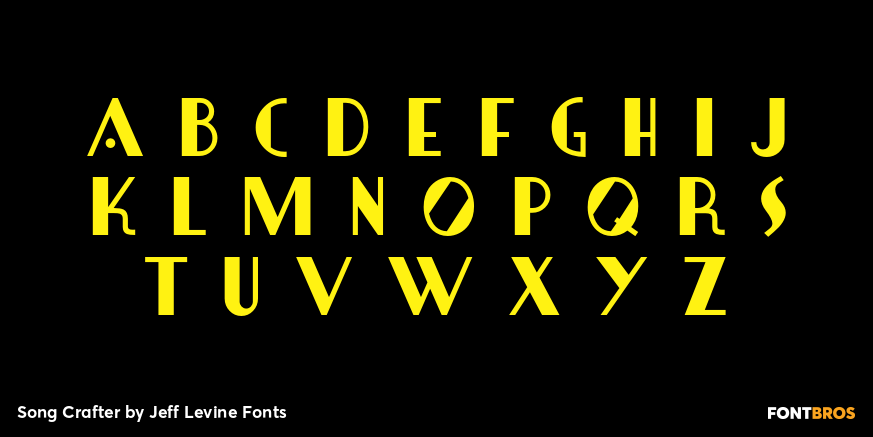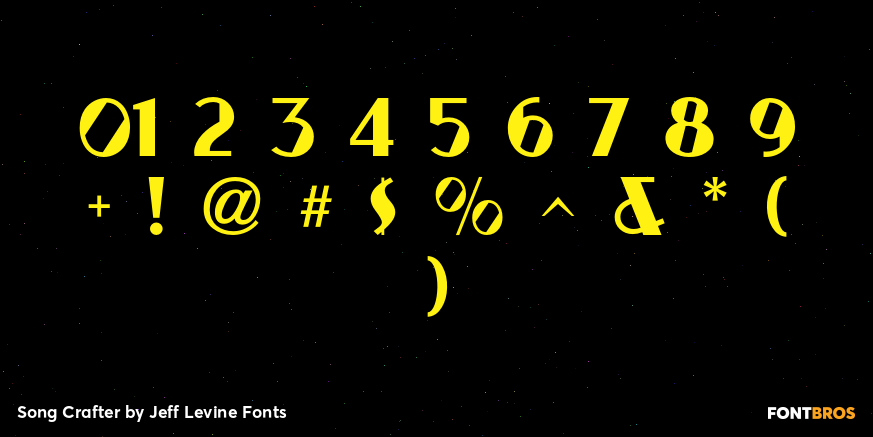
Song Crafter
Song Crafter JNL was modeled from the writer credits on the cover of the 1943 sheet music for 'This Love of Mine', a tune popularized by Frank Sinatra.
The typeface is available in both regular and oblique versions.